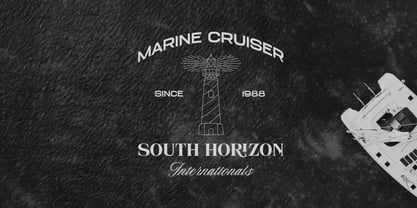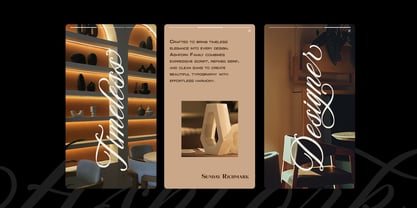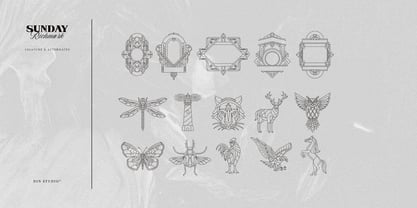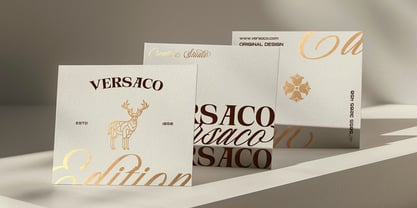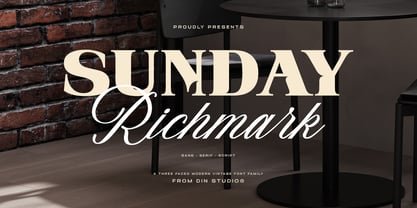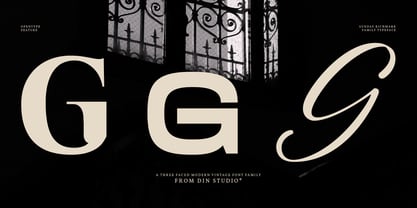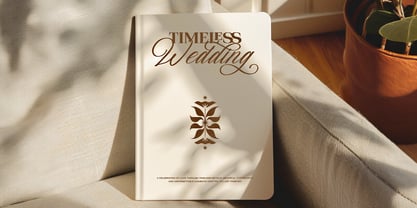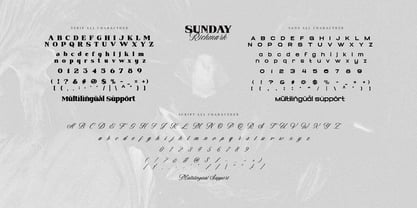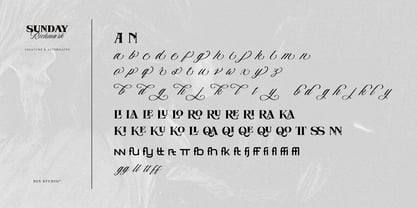
Sunday Richmark
by Din Studio
The Sunday Richmark Font Family was designed by Donis Miftahudin and published by Din Studio. Sunday Richmark contains 8 styles and family package options. More about this family
Sunday Richmark is a versatile modern vintage trio font family. The combination of sans serif, serif, and script fonts makes Sunday Richmark especially flexible. Each style can work beautifully on its own, but when used together, they create an appealing typographic hierarchy with plenty of contrast and personality. The sans serif style provides a clean and modern foundation, the serif adds classic elegance and vintage character, while the script introduces a handcrafted and expressive touch. Together, these three styles create a balanced font trio that can transform ordinary layouts into memorable visual compositions.
Features:
• Alternates
• Ligatures
• Multilingual Supports
• PUA Encoded
• Numerals and Punctuations
Sunday Richmark fits in logos, quotes, branding, posters, and many more designs. Find out more ways to use this font by taking a look at the font preview.
Designers: Donis Miftahudin
Foundry: Din Studio